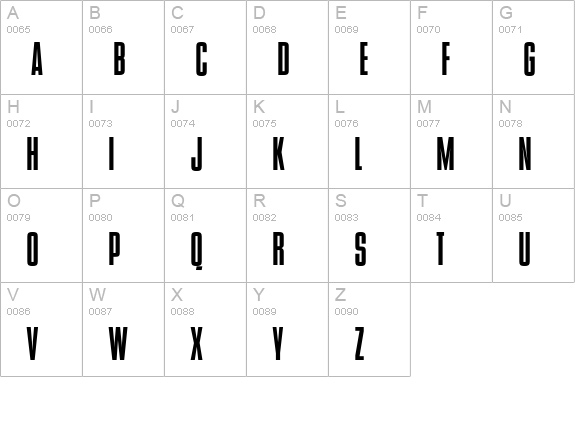
ReportBold Font Details
ReportBold is a striking and powerful font that is sure to make a bold statement in any design project. Its sleek and modern design, combined with its strong and confident letterforms, make it the perfect choice for headlines, titles, and branding materials. With its clean and legible characters, ReportBold is easy to read at any size, ensuring that your message is conveyed with clarity and impact. Whether you're designing a poster, a magazine layout, or a website, this font will add a touch of elegance and professionalism to your project. What sets ReportBold apart is not only its impressive design, but also the fact that it is available for free. That's right, you can freely download this font at FontsMarket.com, a trusted source for high-quality and diverse fonts. This means that you can enhance your designs without breaking your budget. Don't miss out on the opportunity to add ReportBold to your font collection. Its versatility and striking appearance make it a valuable asset for any designer. So head over to FontsMarket.com and download this impressive font for free today!